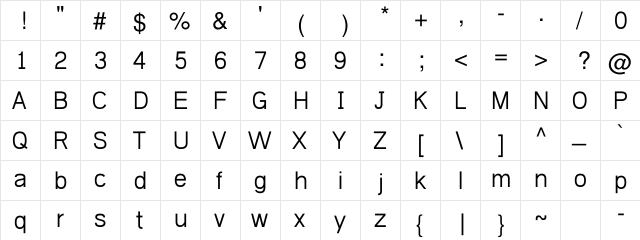
Kh Metal Chrieng Regular
| Foundry | Danh Hong |
| Designer | Danh Hong - 2008 |
Design Context for Kh Metal Chrieng Typeface
Kh Metal Chrieng offers clean, dependable letterforms without strong stylistic allegiance, making it a practical choice for designers who need flexibility.